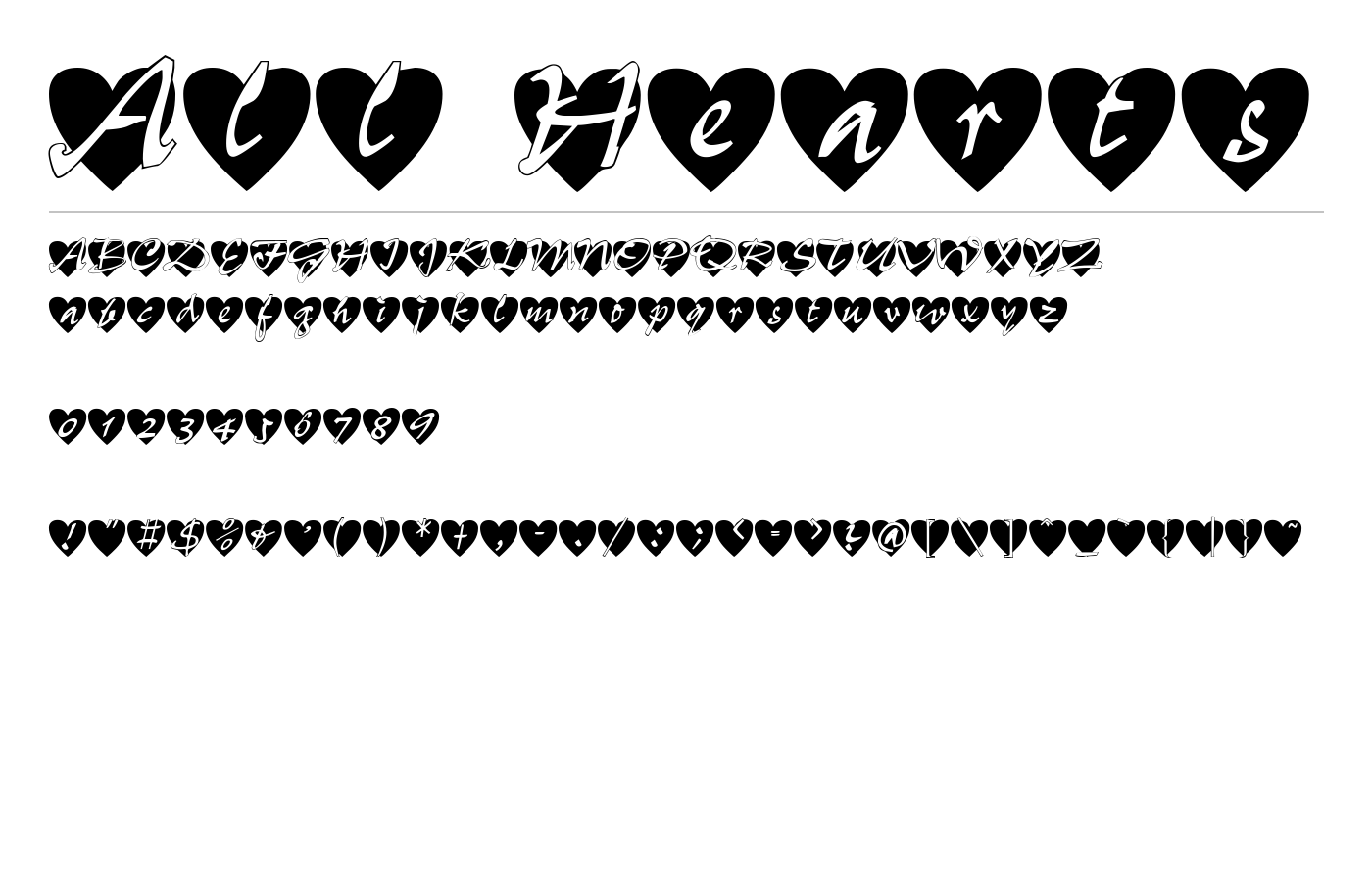
All Hearts Font is a playful and decorative script typeface that combines elegant cursive letterforms with bold, heart-shaped backgrounds for each character, creating a unique and eye-catching design. Its whimsical style and romantic flair make it ideal for fun, festive projects like greeting cards, invitations, and branding related to love or celebration. This font works best in headlines or display uses where its charm and personality can truly shine.
All Hearts Font